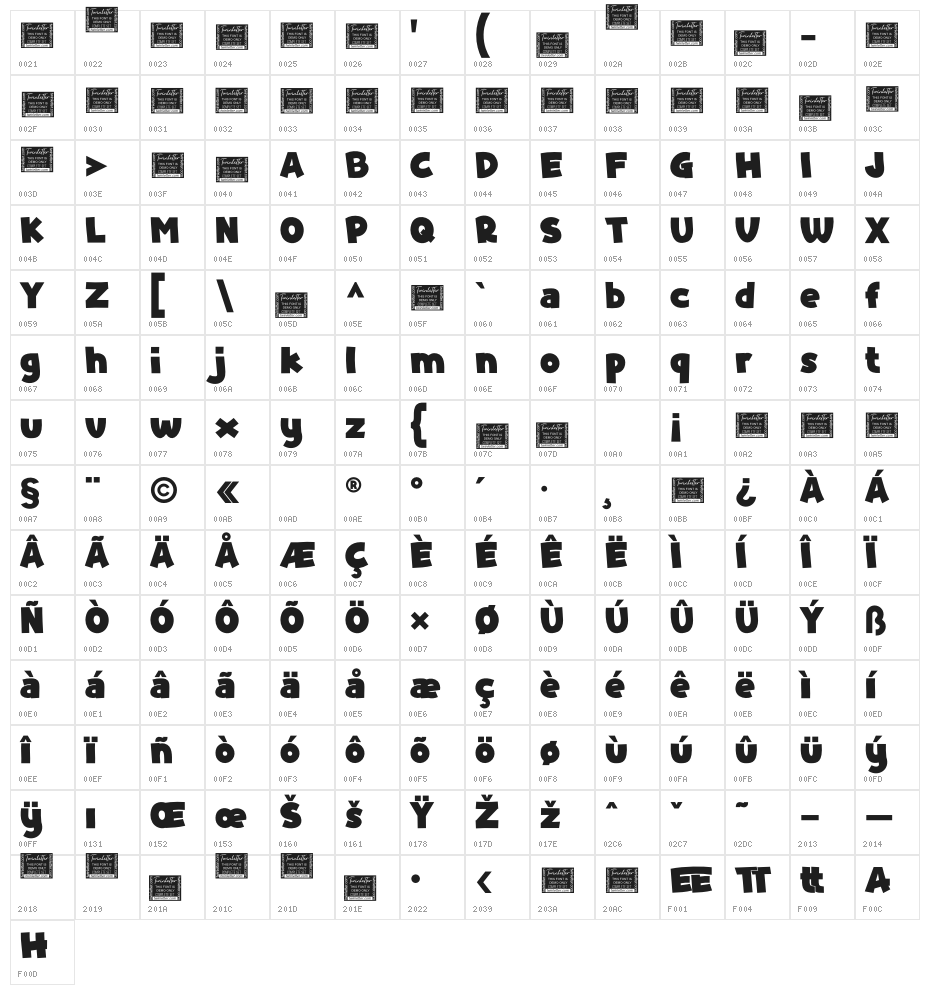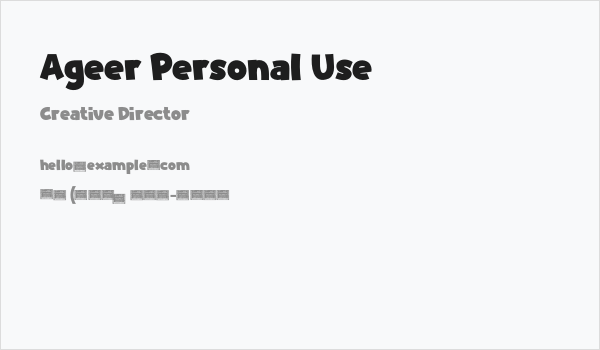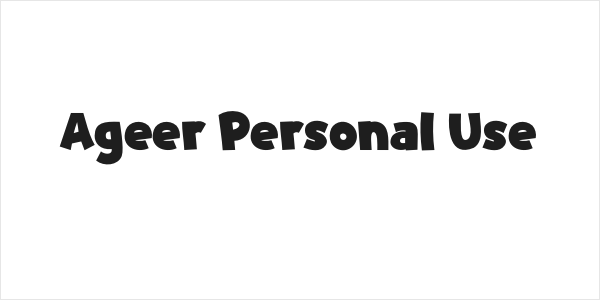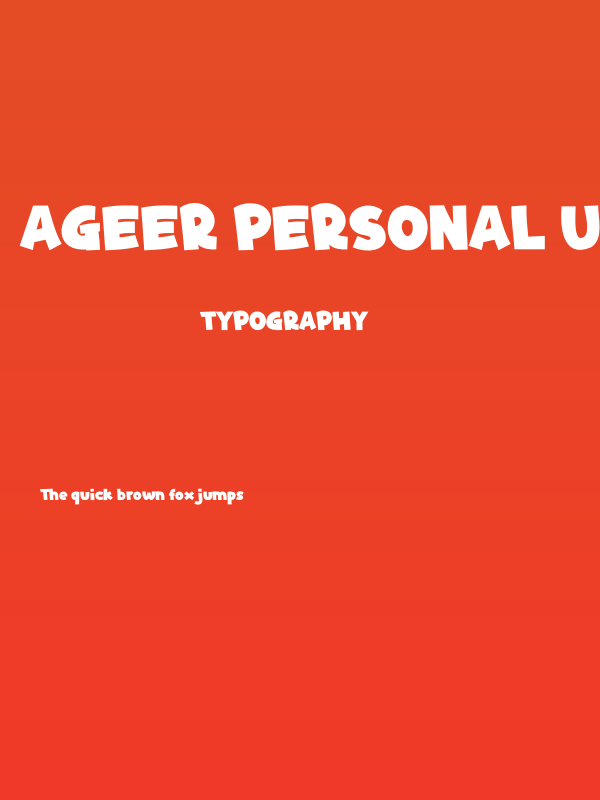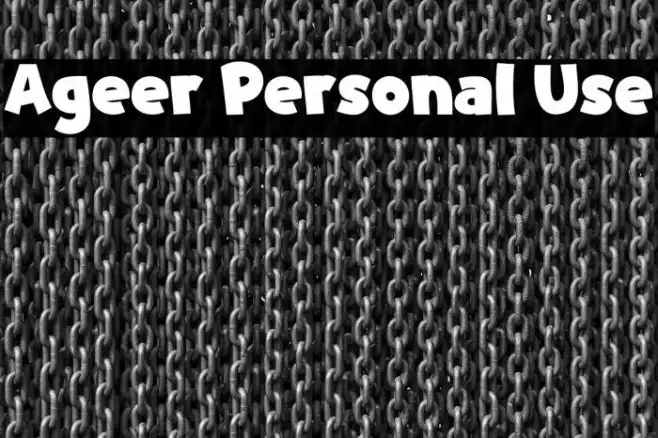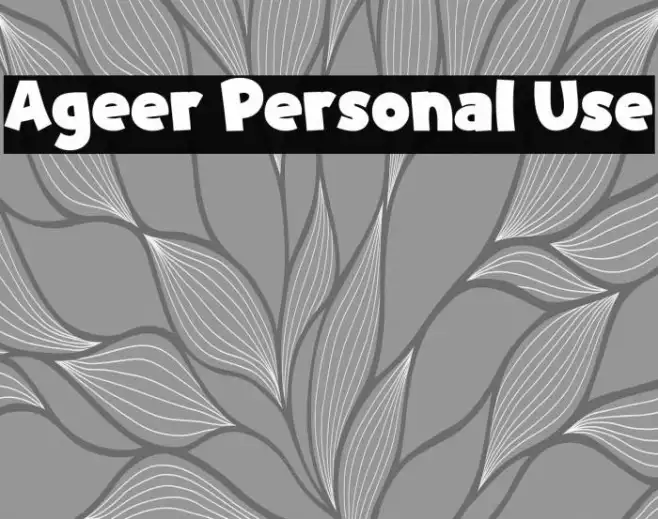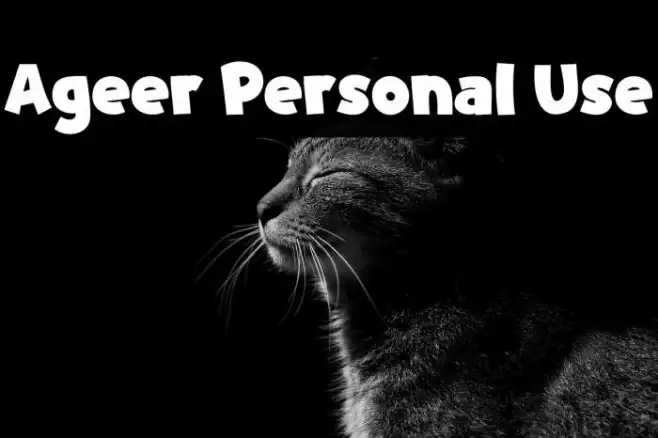
Ageer Personal Use Font
Ageer Personal Use Description
This playful and bold font features a unique, chunky style with exaggerated curves and angles, giving it a whimsical and fun appearance. The uppercase letters are particularly striking, with a strong presence that demands attention. The lowercase letters maintain the same playful aesthetic, with rounded edges and a slightly uneven baseline that adds to the font's charm. The numbers and special characters are consistent with this style, ensuring a cohesive look across all text. This font is ideal for projects that require a lively and energetic feel, such as children's books, party invitations, or playful branding.
| Proposed Projects | Ideal for children's books, party invitations, playful branding, and any project needing a lively touch. |